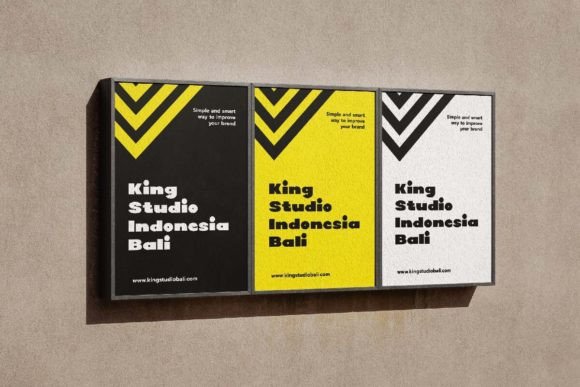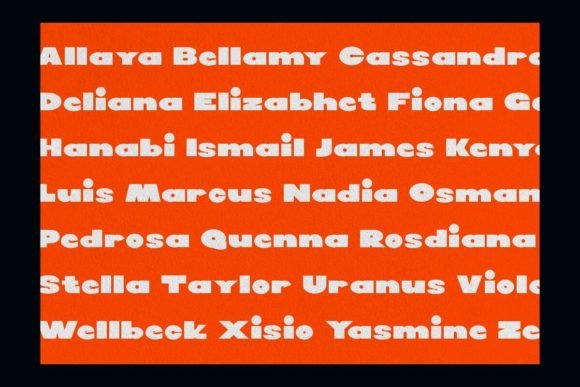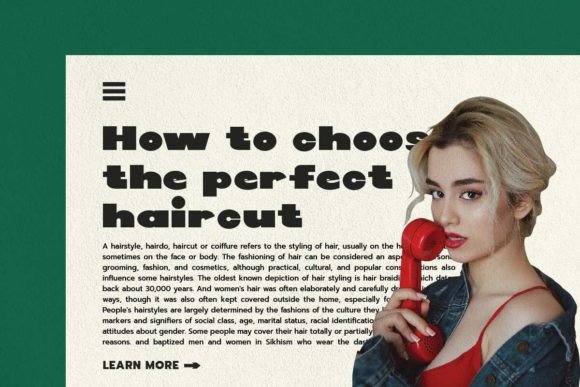
The Perfect Headline Font: Elevate Your Designs with Bold Fintia Font
As a designer, have you ever stared at a blank page, searching for the perfect font to capture the essence of your creative vision? The struggle is real, but with the right font, everything falls into place. That’s where the Bold Fintia Font comes in – a game-changing display font that’s sure to make your designs stand out.
This chunky, retro font is more than just a pretty face; it’s a powerful tool that can elevate your headers, logos, and branding to the next level. With its geometric shapes and bold aesthetic, the Bold Fintia Font is perfect for designers who want to make a statement and leave a lasting impression.
Whether you’re working on a website, packaging, or poster design, the Bold Fintia Font is a valuable addition to your toolkit. Its versatility and eye-catching appeal make it an essential element for any designer looking to create visually striking designs.
Bold Fintia Font Key Features
- Font Family: Bold Fintia is a sans-serif font family designed for modern and professional applications.
- Unique Characteristics: Bold Fintia features a unique blend of modern and classic design elements, making it an ideal choice for corporate branding and professional communications.
Bold Fintia Font Review
I recently had the chance to work with the Bold Fintia font, and I must say, it has its strengths and weaknesses. ✨ Here are a few things that worked well for me:
- Unique Style: Bold Fintia has a distinctive look that’s perfect for modern designs. Its bold, geometric lines and rounded edges give it a modern feel that’s hard to find in other fonts.
- Legibility: Despite its bold appearance, Bold Fintia is surprisingly easy to read, even at small font sizes.
- Customization Options: The font comes with a range of weights, from light to extra bold, which makes it easy to customize for different design needs.
However, I also encountered some limitations ⚠️:
- Clarity at Small Sizes: While Bold Fintia is legible at small font sizes, it can become blurry and difficult to read when scaled down too far.
- Lack of Italic Options: Unfortunately, Bold Fintia doesn’t come with italic or oblique versions, which can limit its versatility in certain design scenarios.
Overall, I think Bold Fintia is a solid choice for designers who want a modern, bold font with a unique style. While it has some limitations, its strengths make it a valuable addition to any design library.
Tips for Getting the Most Out of Bold Fintia Font
Use Bold Fintia Font for headings and titles to add a touch of sophistication to your designs.
Pair Bold Fintia Font with other fonts to create a visually appealing contrast.
Use Bold Fintia Font in combination with bold colors to make your designs stand out.
Bold Fintia Font is ideal for:
Business cards and letterheads.
Brochures and flyers.
Presentations and reports.
Alternatives to Bold Fintia Font
1. Montserrat Bold
Montserrat Bold is a sans-serif font that is highly legible and versatile. It is ideal for use in digital interfaces, signage, and advertising. Montserrat Bold has a more geometric and modern feel compared to Bold Fintia Font, which is more rounded and elegant. When to use: For modern and edgy designs, especially in digital interfaces.
2. Playfair Display Bold
Playfair Display Bold is an elegant and luxurious serif font that is perfect for high-end branding, publishing, and advertising. It has a more classic and sophisticated feel compared to Bold Fintia Font, which is more contemporary and playful. When to use: For luxurious and high-end designs, especially in publishing and advertising.